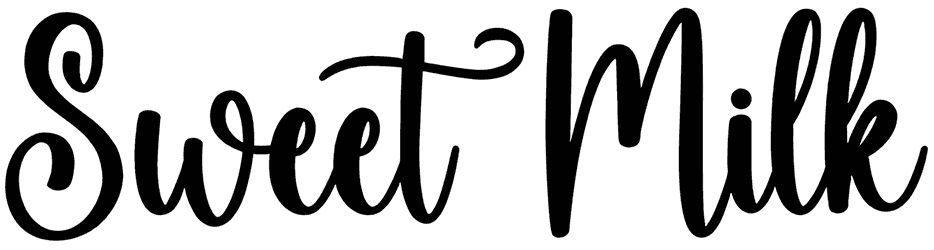
Sweet Milk Font
Decorate your design text in a modern and charming way and have a positive effect on the viewers of your layout. This love font, which is called Sweet Milk, includes soft and natural hand-lettering characters. With a nice curvy style, the Sweet Milk font will be a perfect choice for a lot of novel items, namely postcards, planners, labels, apparel, and so on.